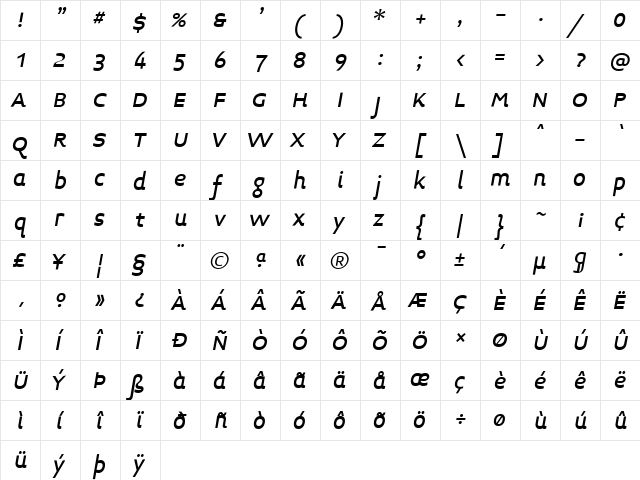
Midiet Sans Italic Medium
| Style | Sans Italic Medium |
| Foundry | YOFonts |
| Designer | Yamaoka Yasuhiro |
Design Context for Midiet Typeface
Midiet is a composed and adaptable typeface that performs quietly and consistently across a wide range of design contexts. The slanted form adds forward momentum and visual energy.
Pro Tip: Try Midiet for annotation and caption copy alongside an upright companion — the contrast in angle creates a dynamic but ordered typographic system.